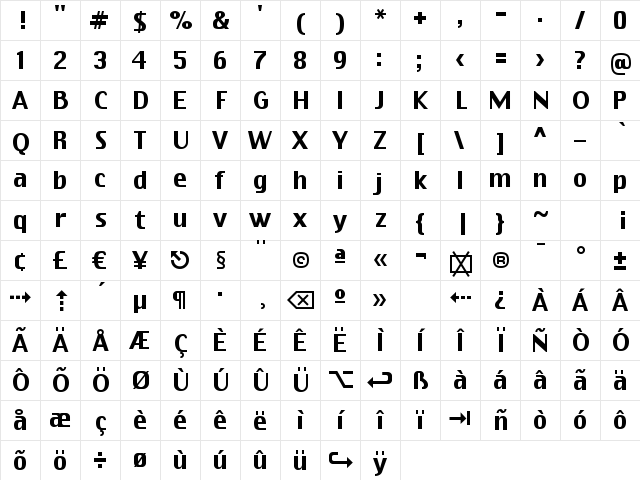
Virtue Regular
Virtue Family
Complete Virtue Regular glyph index. Displaying only characters natively supported by Virtue Regular font.
Design Context for Virtue
Virtue is a composed and adaptable typeface that performs quietly and consistently across a wide range of design contexts.